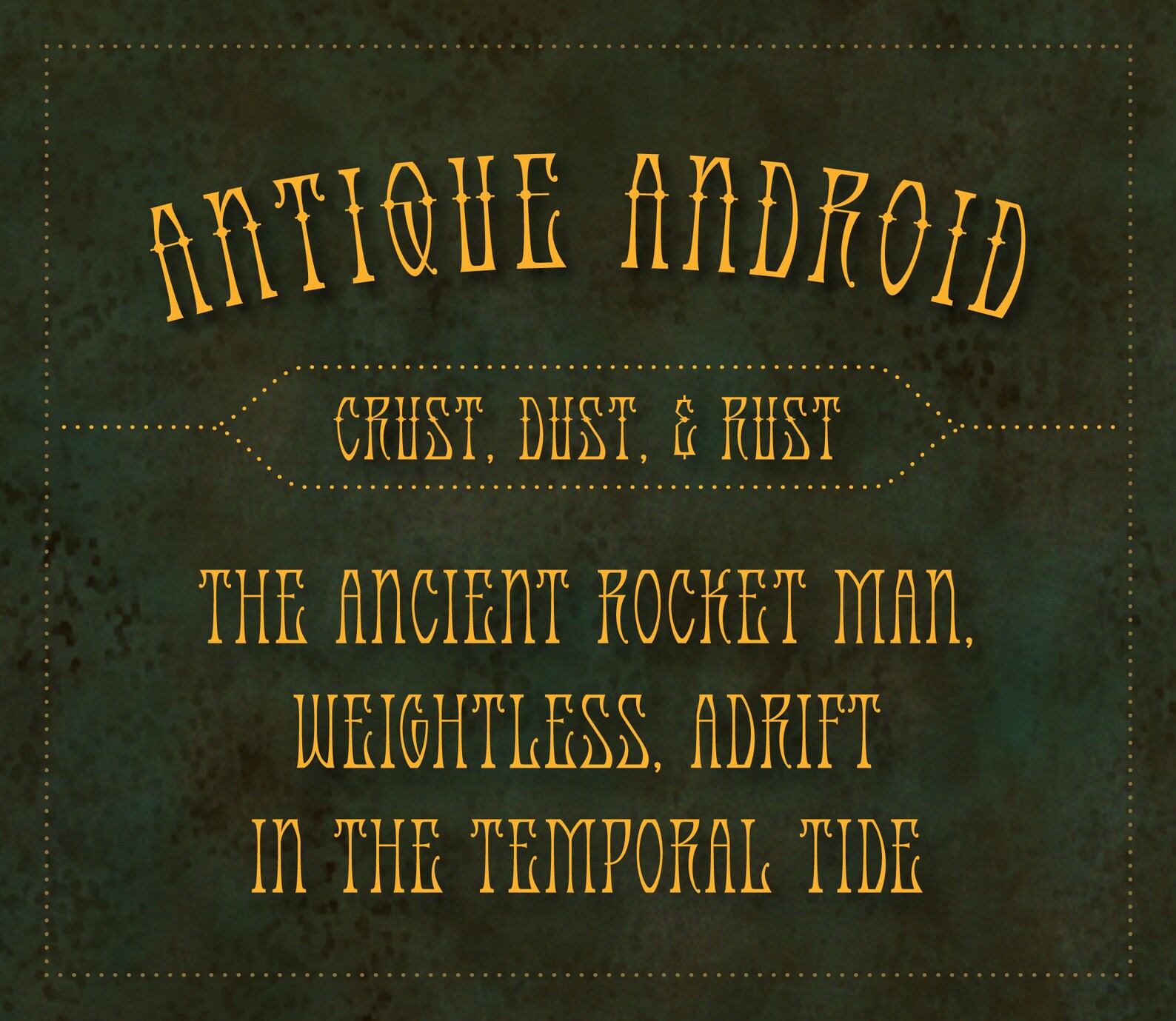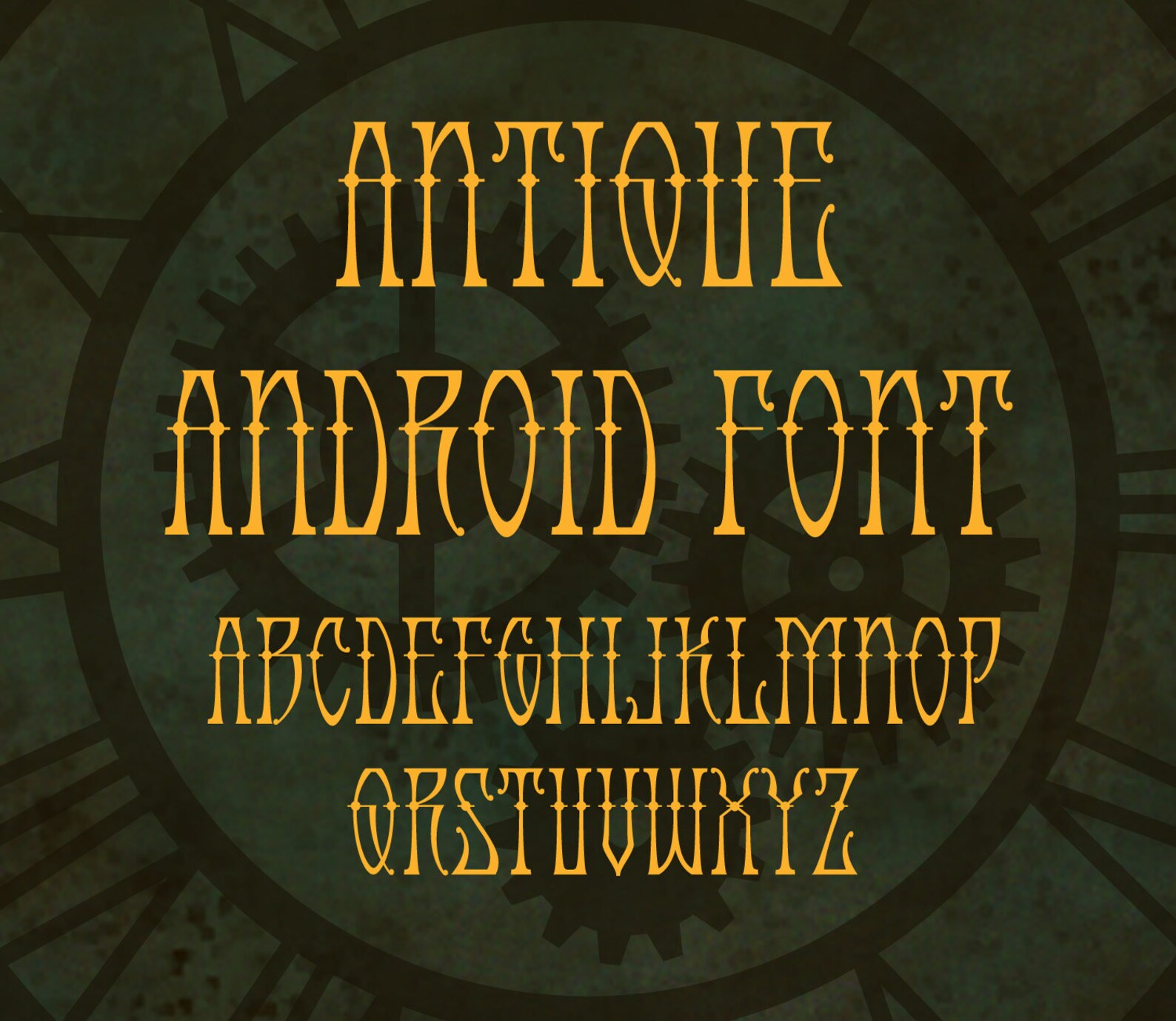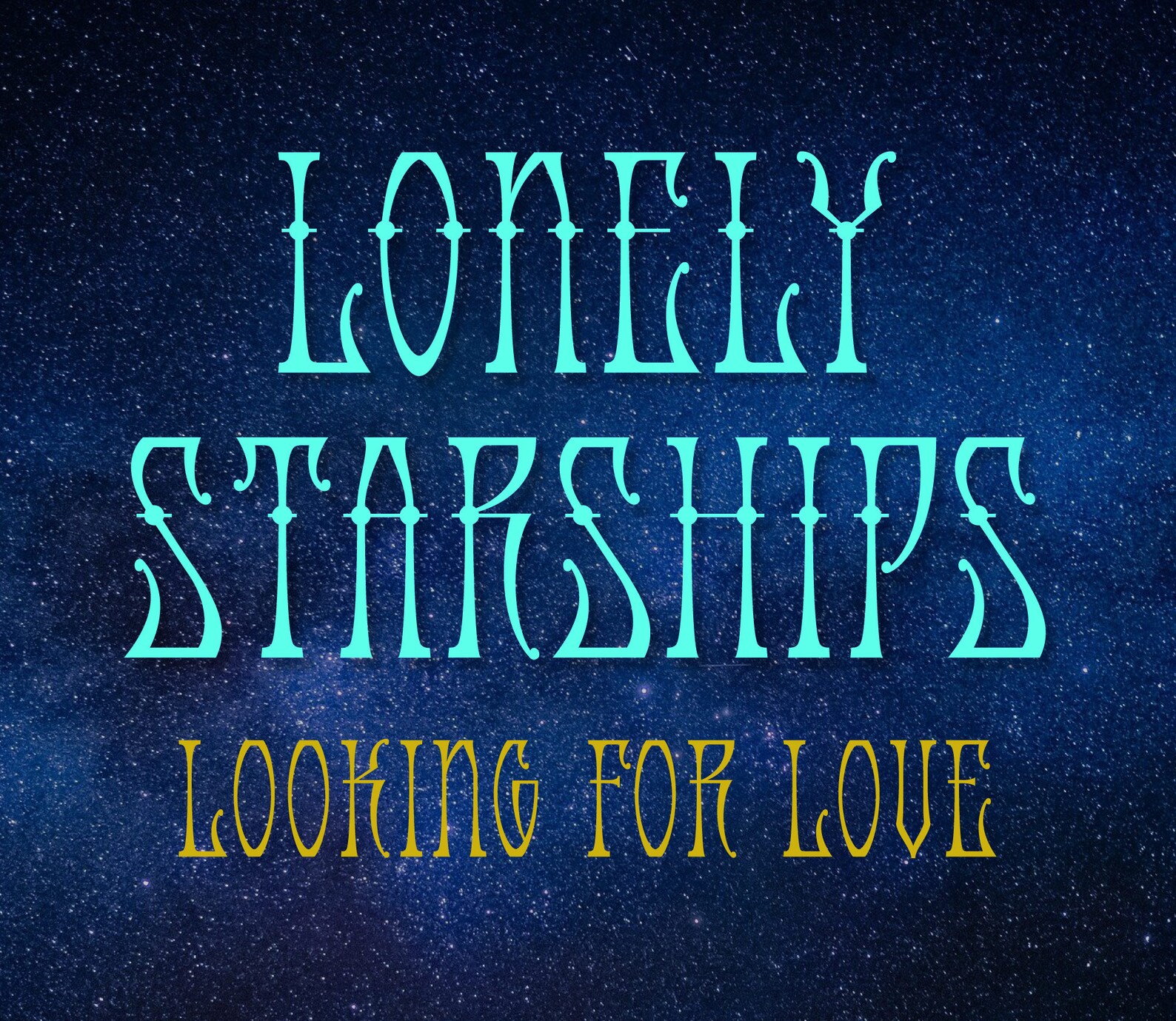
Back in 1993 I made some pencil sketches that gave me the idea for this font. I developed it into a very minimal font, and It sat for years, unfinished. Not long ago I knocked the dust and cobwebs off it, refined it, and got it ready to really use. The font has a very extensive set of punctuation marks and accents–pretty much anything you need to type whatever you want.